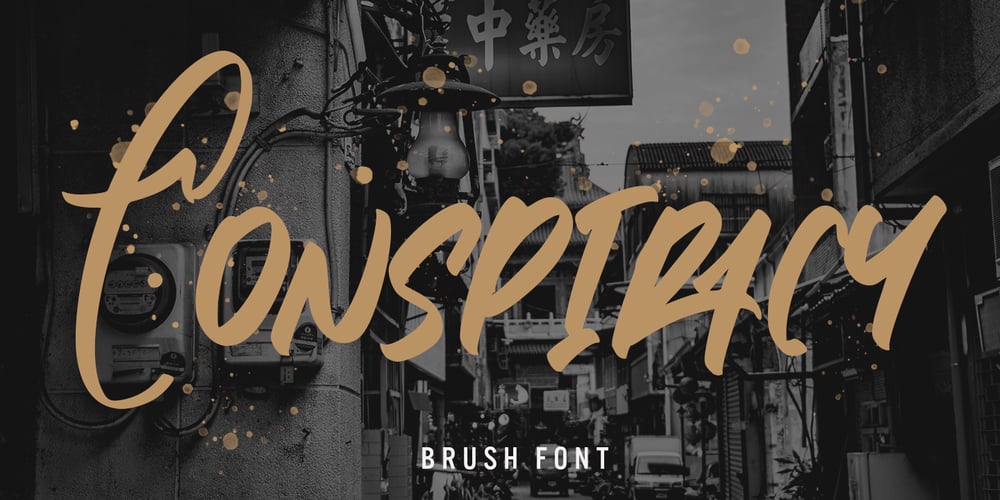
Conspiracy Font Family was designed by Asep Rendi and published by Arendxstudio. Conspiracy contains 1 styles and family package options. Conspiracy – Urban Brush Font with its distinctive character that can be easily implemented in your various design projects . Conspiracy came with opentype features such stylistic alternates, stylistic sets & ligatures good for logotype, poster, badge, book cover, tshirt design, packaging and any more.Features : • Character Set A-Z • Numerals & Punctuations (OpenType Standard) • Accents (Multilingual characters) • LigatureThere it is! I really hope you enjoy it